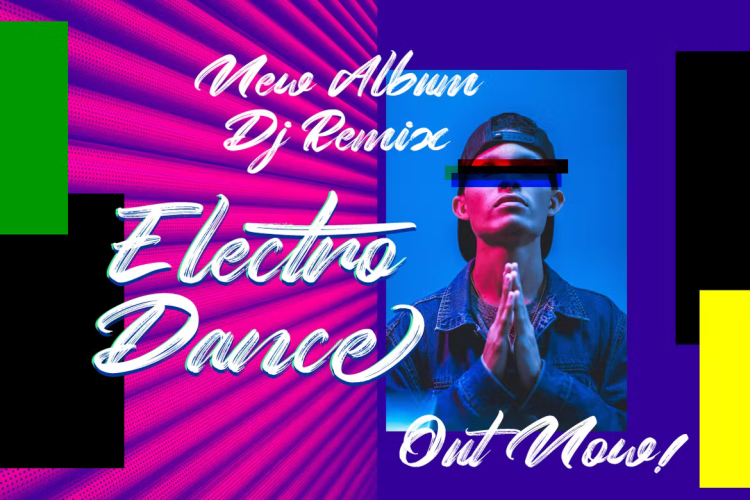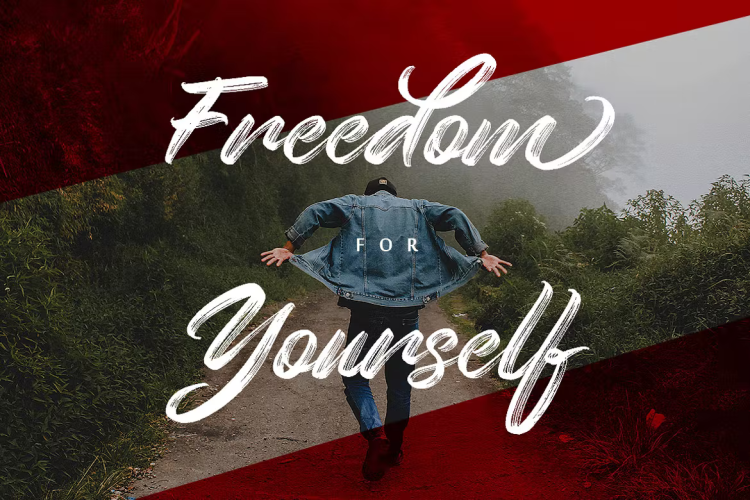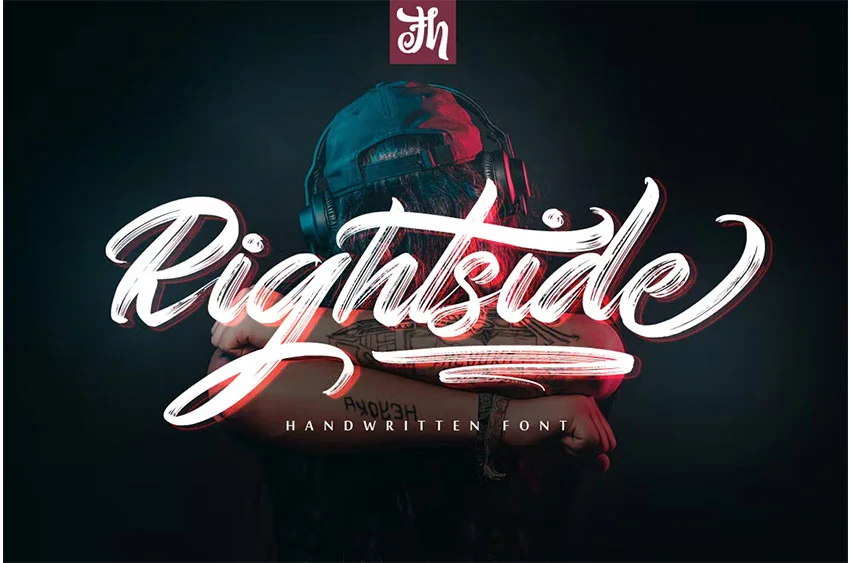
Rightside Font
Rightside Font is Script Font with Handlettering Dry Brush Style, with OpenType feature include of the font. Suitable for design, element design, wedding, event, t-shirt…
Rightside Font is Script Font with Handlettering Dry Brush Style, with OpenType feature include of the font. Suitable for design, element design, wedding, event, t-shirt, logo, badges, stickers, awesome work, etc…
Where Rightside Font works best
A short phrase in Rightside Font carries warmth that a typeset sans cannot fake; keep the rest of the card plain.
Chalkboard-style headings in Rightside Font make a menu feel hand-made. Keep the dish descriptions in a simple face so prices stay readable.
One line of Rightside Font over a photo is enough; the script carries the tone and the caption does the work.
What kind of work does Rightside Font suit?
It sits in the Script And Handwritten group and reads as branding, brush, handwritten, professional. That makes it a candidate wherever those qualities help: headings, packaging, social graphics and brand work. Set it at the size you plan to use before deciding.